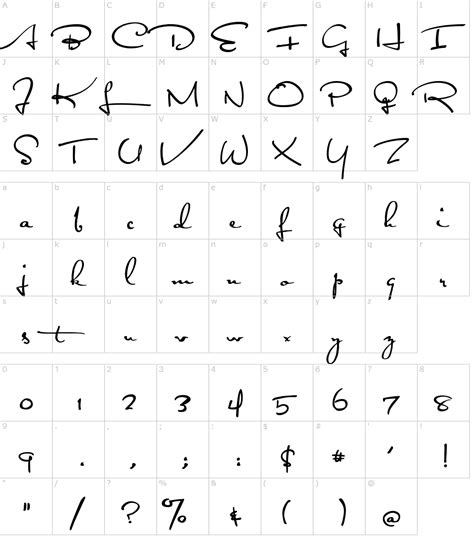
Satisfaction Free Font
Satisfaction Free Font - It is a free font with a. Web the cursive lettering of the taylor swift signature on the cover resembles a font called satisfaction.
Web the cursive lettering of the taylor swift signature on the cover resembles a font called satisfaction.